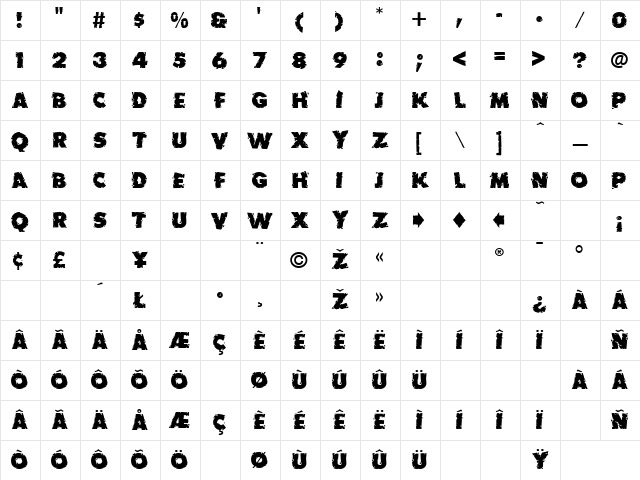
Earthquake Regular Free Font
Earthquake Regular
Foundry: Digitized by Dan X. Solo. Software by Dover Publications, Inc
Design Context for Earthquake
Earthquake is a composed and adaptable typeface that performs quietly and consistently across a wide range of design contexts.
Who designed the Earthquake Regular font?
This font was published by Digitized by Dan X. Solo. Software by Dover Publications, Inc. Check the technical specs section for copyright and designer details.